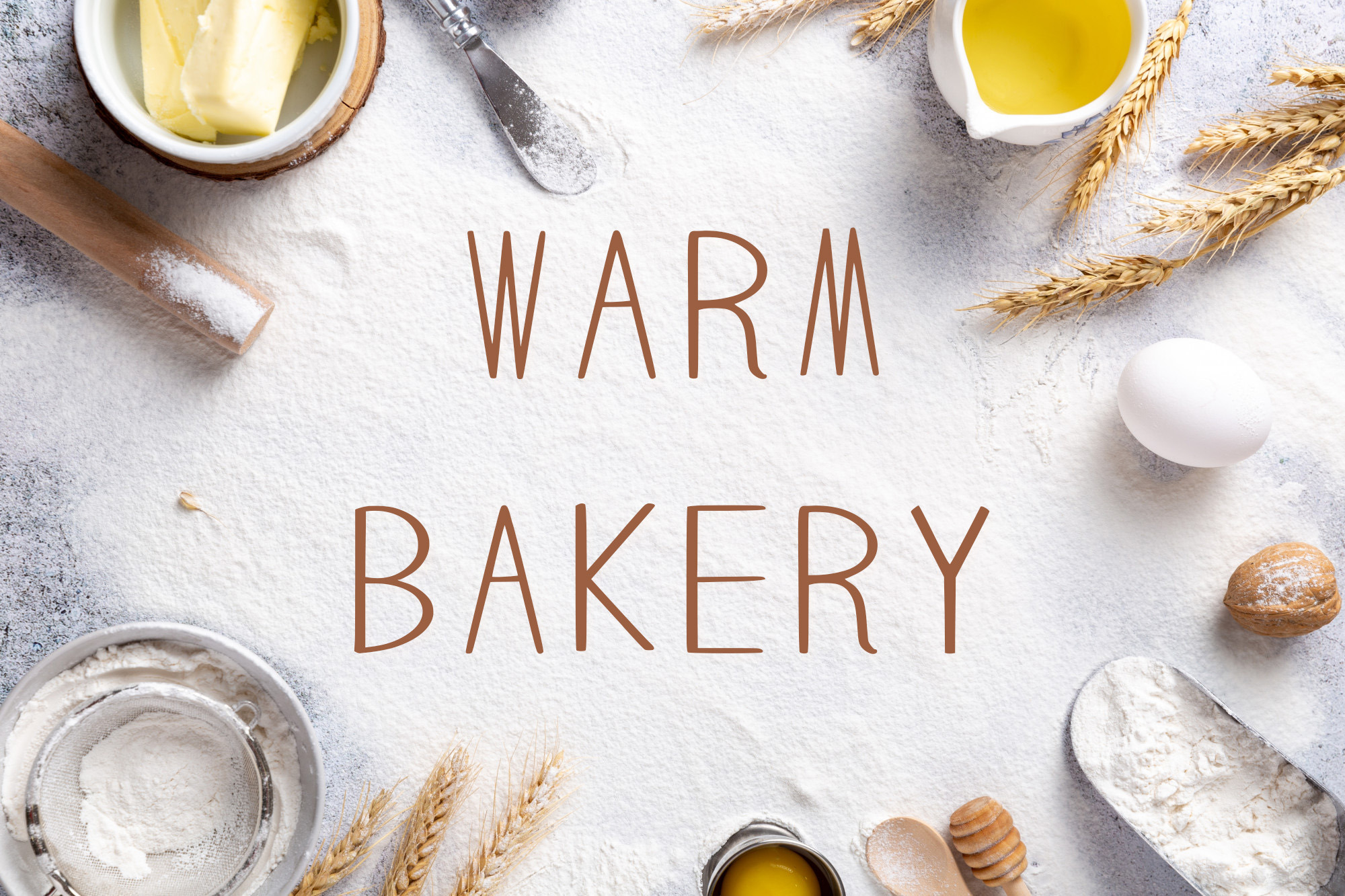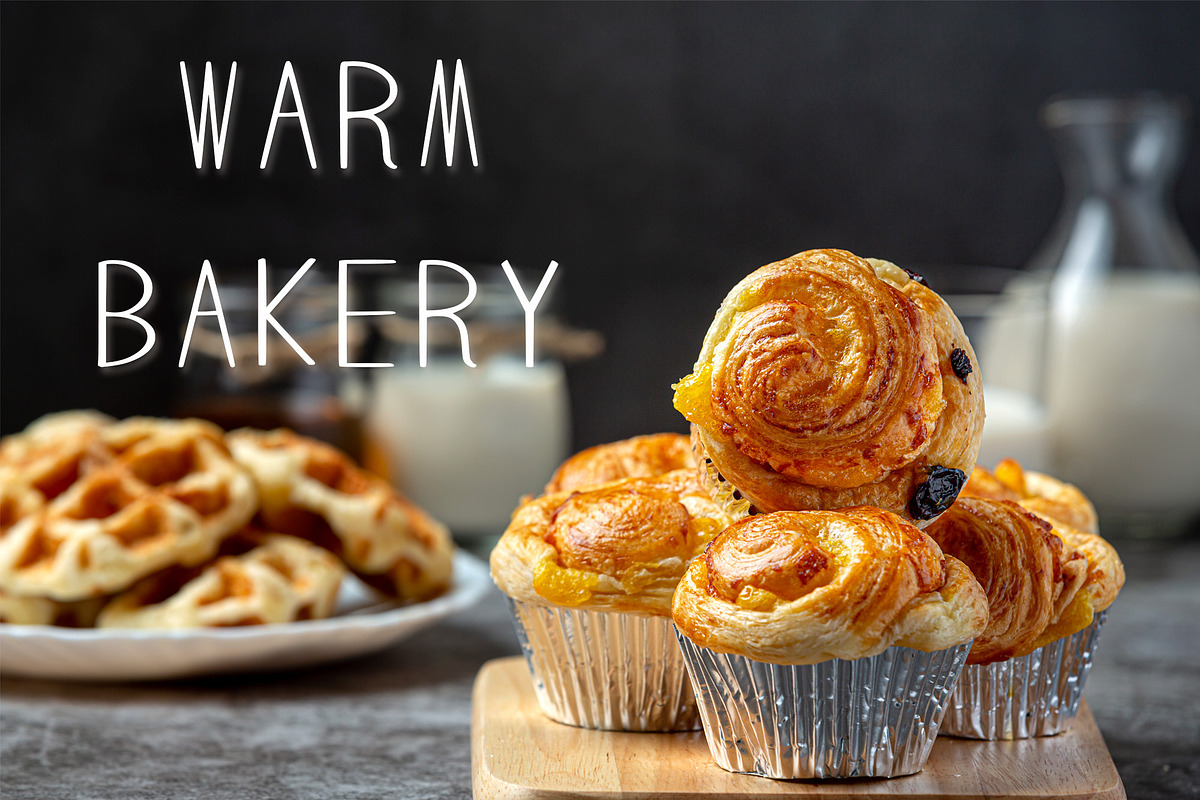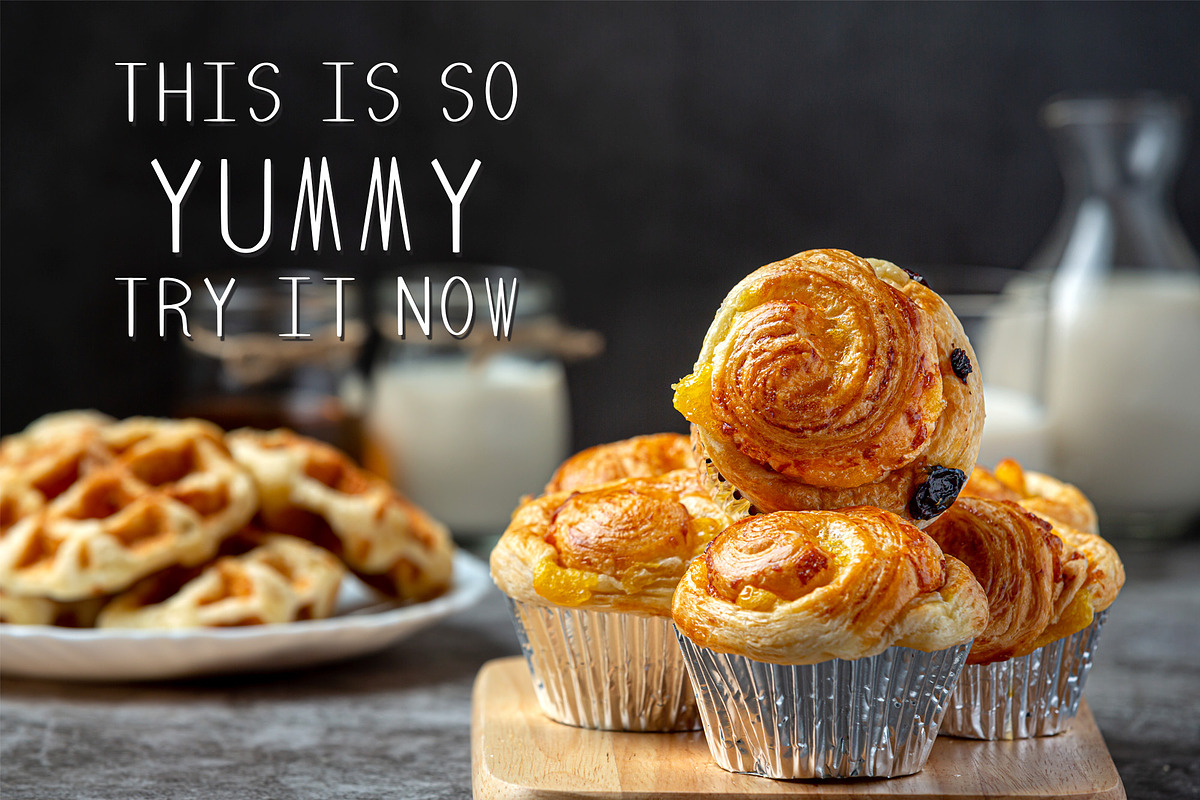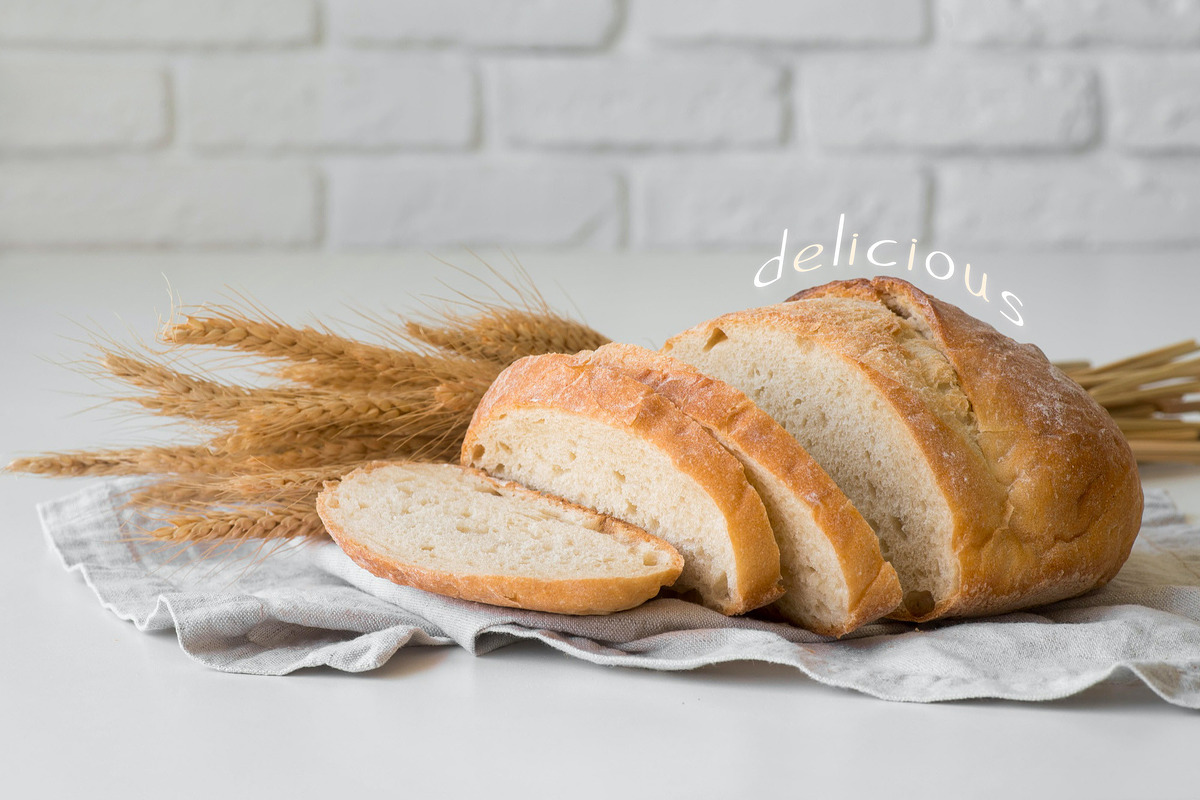
Warm Bakery Font
Warm Bakery is a cute and thin handwritten font. Inspired by a warm bakery in the morning, this font can bring a cozy accent to all your crafty ideas!